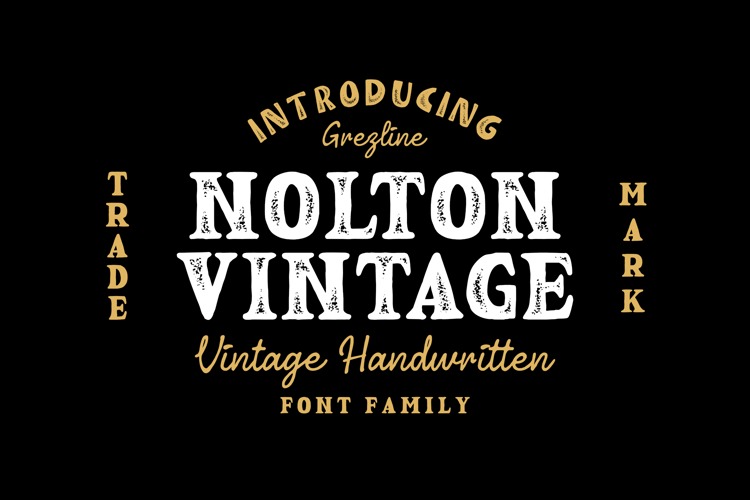
Nolton Vintage – Diplay Serif Font
Nolton Vintage – Diplay Serif Font is a versatile font designed to adapt beautifully across different design styles, offering dependable readability and balance. This font is inspired by the timeless beauty of vintage lettering. Every word typed with it to feel more expressive, more handcrafted and more memorable. It’s not just about readability – it’s about creating a mood and giving your design a stronger identity.